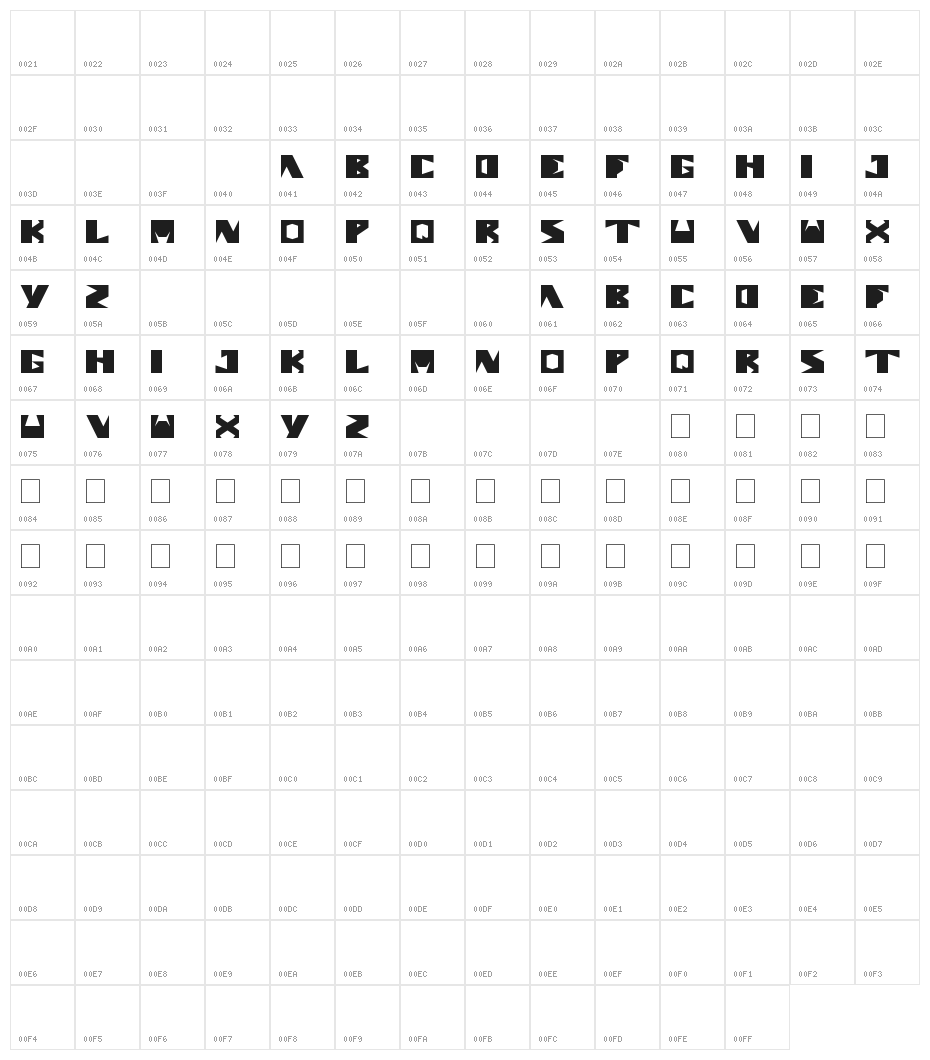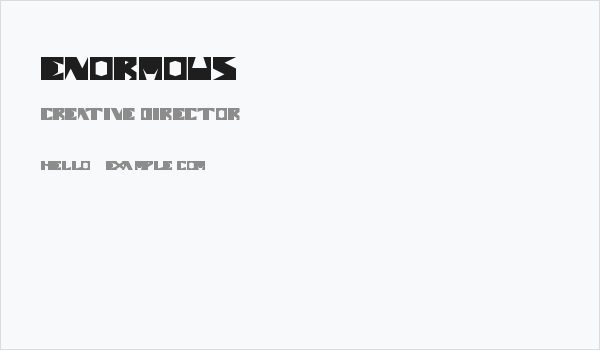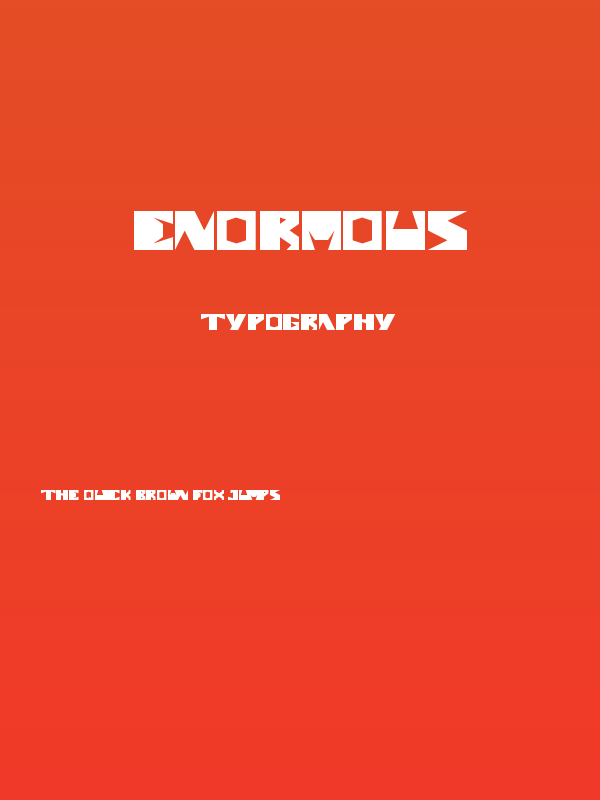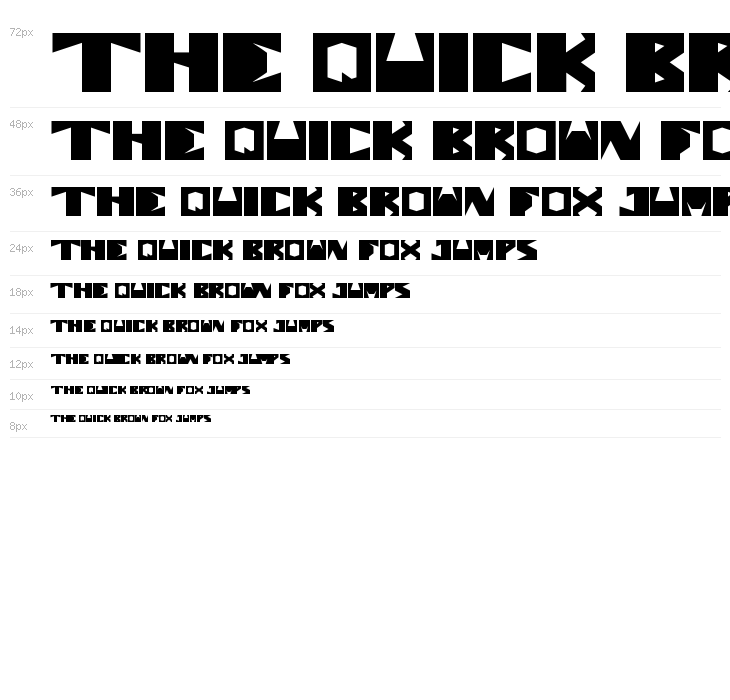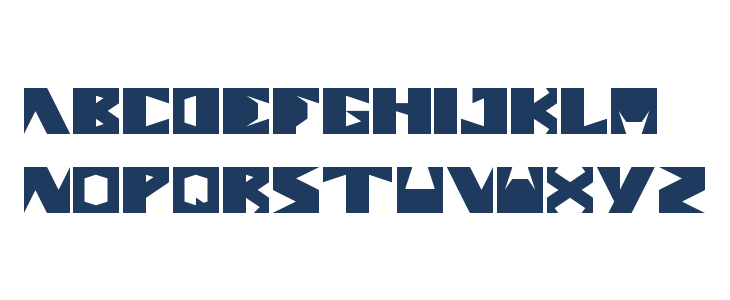
enormous Font
enormous Description
This font features a bold and geometric design, characterized by sharp angles and a blocky appearance. Each letter is constructed with a series of straight lines and pointed edges, giving it a futuristic and edgy look. The uppercase letters are particularly striking, with a consistent height and width that create a uniform appearance. The font's unique style makes it stand out, with a strong visual impact that is both modern and dynamic. Its distinctiveness is further enhanced by the absence of curves, relying solely on angular shapes to form each character.